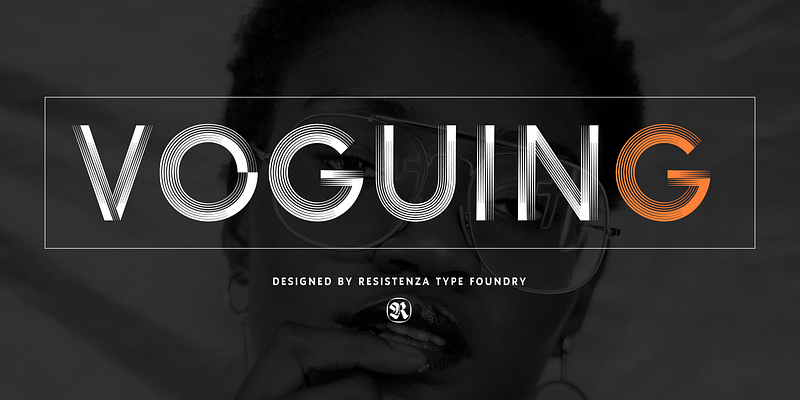
Voguing Font Free Download is a high-fashion, modern display typeface that channels bold elegance and runway-ready style. With its sharp lines, extended forms, and confident presence, Voguing is perfect for luxury branding, fashion editorials, magazine headlines, and stylish social media content.
This font is designed to make a statement—its tall x-height and dramatic letterforms give it a striking, upscale feel. Whether you're crafting a logo for a beauty brand or designing promotional material for a fashion event, Voguing adds instant glamour and sophistication to your visuals.
Featuring uppercase characters, numerals, essential punctuation, and multilingual support, Voguing Font Free Download is both beautiful and practical. Use it in personal or test projects to explore its fashion-forward aesthetic. For any commercial applications, please make sure to purchase the appropriate license. Elevate your design game with this fierce and fashionable typeface that’s built to stand out.